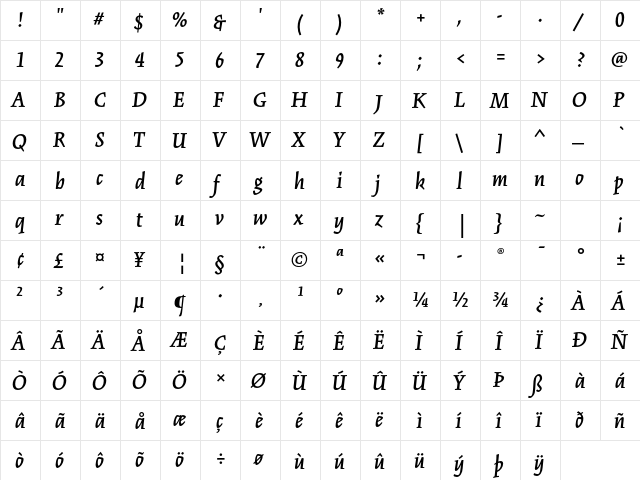
Kinesis Std Semibold Italic Font Preview
| Designer | Mark Jamra |
Design Context for Kinesis Std Typeface
Kinesis Std takes a measured approach to typography — its balanced proportions and neutral character make it a reliable workhorse for both digital and print work. The slanted form adds forward momentum and visual energy. The heavy weight commands attention and anchors typographic hierarchies.
Pro Tip: Try Kinesis Std for annotation and caption copy alongside an upright companion — the contrast in angle creates a dynamic but ordered typographic system.